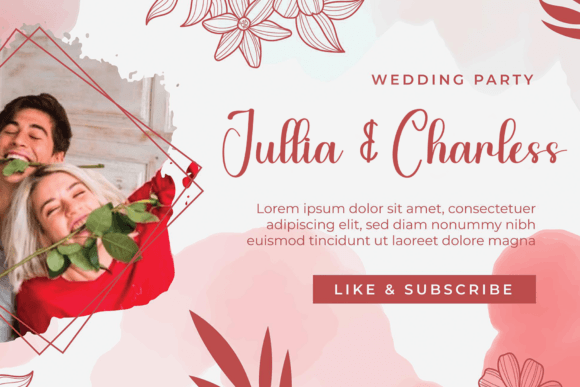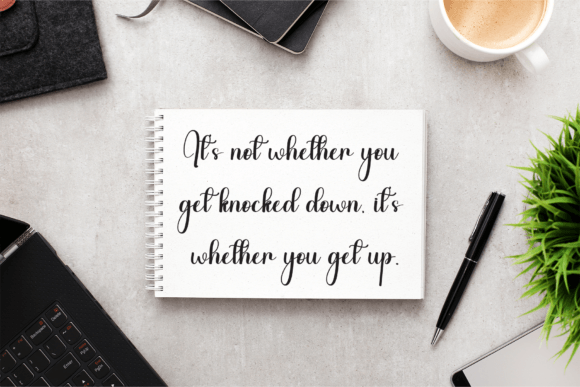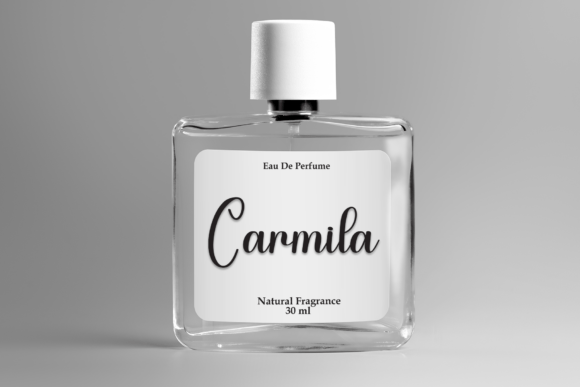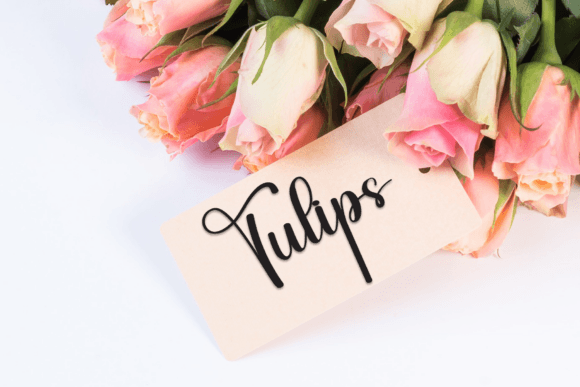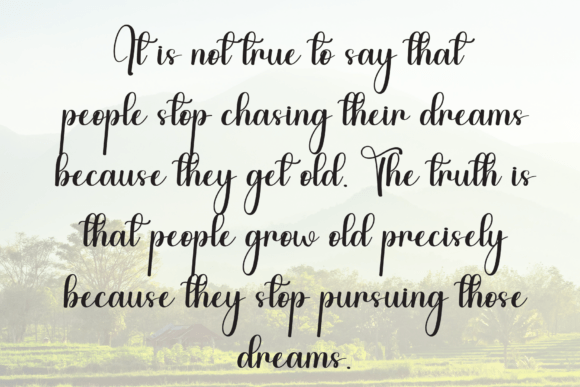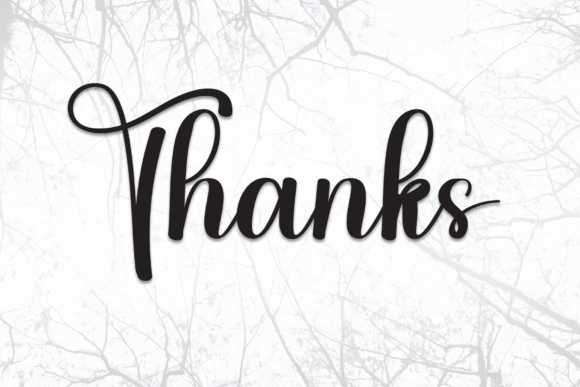
Branches Font: Add a Touch of Whimsy to Your Designs
Are you looking for a font that can add a dash of fun and personality to your designs? Look no further than Branches Font, a delightfully charming handwritten display font that’s perfect for creating unique and eye-catching wedding invitations, greeting cards, and more.
What is Branches Font?
Branches Font is a beautifully crafted handwritten display font that’s imbued with warmth and character. Its playful undertones make it an ideal choice for designers and crafters who want to add a touch of whimsy to their designs. Whether you’re creating wedding invitations, greeting cards, or other special occasion designs, Branches Font is the perfect choice.
Key Features of Branches Font
- Handwritten Display Font: Branches Font is a handwritten display font that’s perfect for creating eye-catching headlines and titles.
- Playful Undertones: The font has a playful and whimsical touch that’s perfect for adding a dash of fun to your designs.
- Warm and Inviting: Branches Font is imbued with warmth, making it perfect for creating designs that are heartfelt and personal.
- Versatile: The font is versatile and can be used for a variety of design projects, from wedding invitations to greeting cards and more.
Why Choose Branches Font?
There are many reasons why Branches Font is a great choice for designers and crafters. Here are just a few:
- Unique and Eye-Catching: Branches Font is a unique and eye-catching font that’s sure to grab attention.
- Easy to Read: Despite its playful undertones, Branches Font is easy to read and understand, making it perfect for creating designs that are both fun and functional.
- Customizable: The font is highly customizable, allowing you to adjust the size, color, and style to fit your design needs.
- Support for Multiple Languages: Branches Font supports multiple languages, making it a great choice for designers who work with international clients.
Using Branches Font in Your Designs
Using Branches Font in your designs is easy. Here are a few tips to get you started:
- Pair it with Other Fonts: Branches Font pairs well with other fonts, so don’t be afraid to experiment with different combinations.
- Use it for Headlines and Titles: Branches Font is perfect for creating eye-catching headlines and titles.
- Add a Pop of Color: Branches Font looks great with bright and bold colors, so don’t be afraid to add a pop of color to your design.
Design Ideas Using Branches Font
Branches Font is a versatile font that can be used for a variety of design projects. Here are a few ideas to get you started:
- Wedding Invitations: Branches Font is perfect for creating unique and eye-catching wedding invitations.
- Greeting Cards: The font is also great for creating greeting cards for special occasions like birthdays, holidays, and more.
- Social Media Graphics: Branches Font can be used to create eye-catching social media graphics that are sure to grab attention.
- Logos and Branding: The font can also be used to create logos and branding materials that are unique and memorable.
Branches Font is a delightfully charming handwritten display font that’s perfect for adding a touch of whimsy to your designs. With its playful undertones and warm and inviting style, it’s the perfect choice for designers and crafters who want to create unique and eye-catching designs. Whether you’re creating wedding invitations, greeting cards, or other special occasion designs, Branches Font is a great choice.